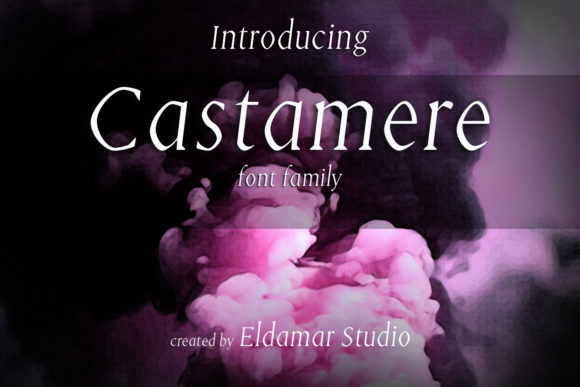
The Designer’s Delight: Castamere Font
I still remember the frustration of working on a project, hours spent searching for the perfect font, only to end up with a mediocre choice that didn’t quite capture the essence of the design. It was as if the font was a puzzle piece that just didn’t fit. But then, I stumbled upon Castamere – a minimal, yet elegant serif font that has since become my go-to choice for a wide variety of designs.
A Personal Review: Love at First Sight
So, what makes Castamere so special? Here are a few things I absolutely love about this font:
- ✨ Versatility: Castamere’s neat and simple style makes it suitable for a wide range of designs, from modern and sleek to traditional and elegant.
- ✅ Readability: The font’s clear and concise lines ensure that your text is easy to read, even at small sizes.
- 💡 Elegance: Castamere adds a touch of sophistication to any design, making it perfect for projects that require a bit of luxury and refinement.
While Castamere is an excellent font, it’s not without its quirks. Here are a few things to keep in mind:
- 🤔 Limited character set: Castamere’s character set is somewhat limited, which can make it less suitable for projects that require a wide range of special characters.
- ⚠️ Not ideal for body text: While Castamere is great for headings and titles, it may not be the best choice for body text due to its elegant, yet somewhat delicate design.
Castamere was designed with the goal of creating a font that is both elegant and versatile. The designer drew inspiration from classic serif fonts, while also incorporating modern elements to create a unique and refined feel. The result is a font that is perfect for a wide range of designs, from modern and sleek to traditional and elegant.
| Font Name | Castamere Font |
| Author | DmDesignsStoreArt |
| What is Castamere font? | Castamere is a minimal, yet elegant serif font, suitable for a wide variety of designs. |
| Is Castamere suitable for body text? | While Castamere is great for headings and titles, it may not be the best choice for body text due to its elegant, yet somewhat delicate design. |
| Does Castamere support OpenType features? | Yes, Castamere supports OpenType features, such as ligatures and stylistic alternates. |